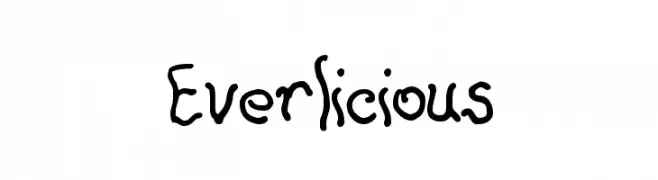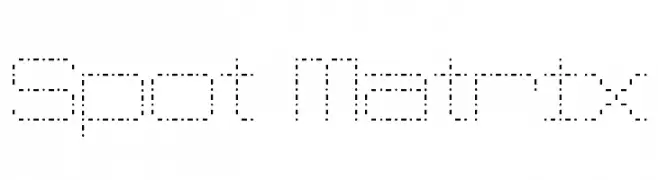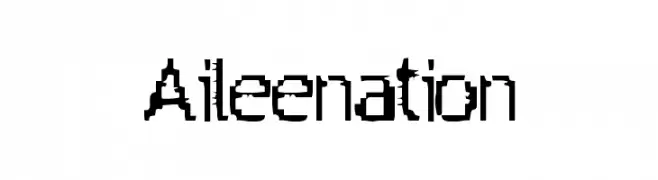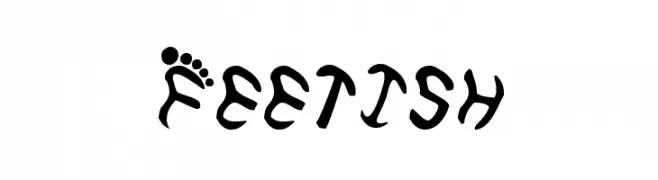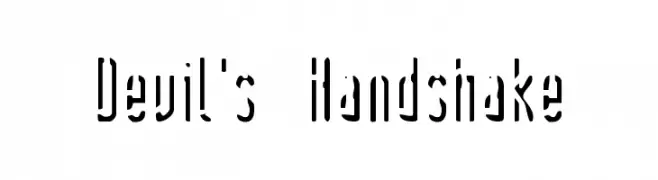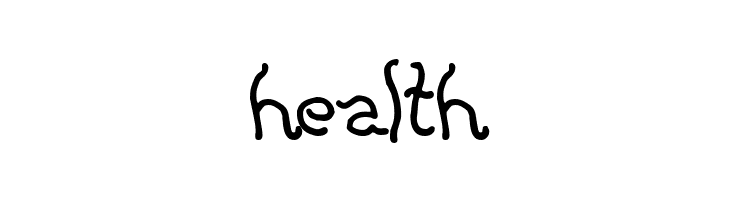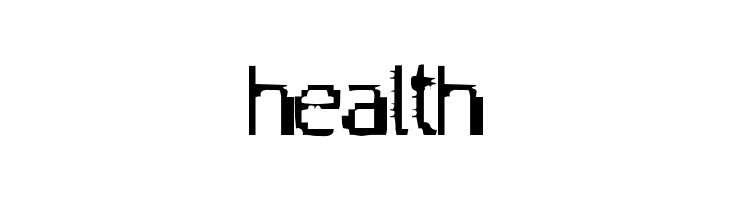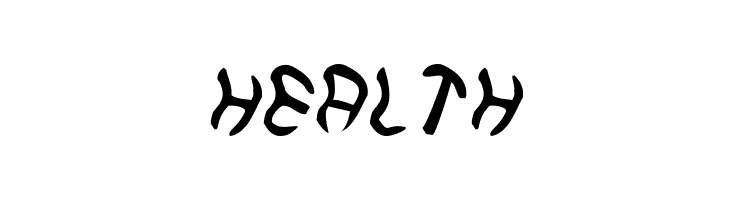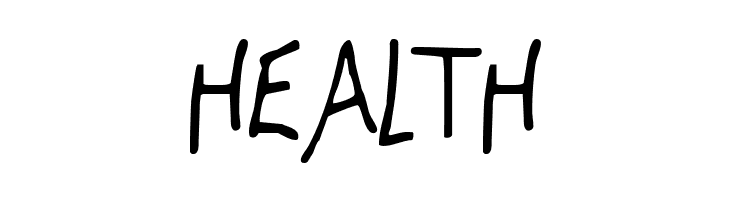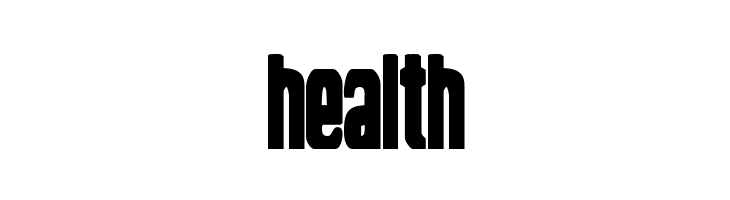
A playful, hand-drawn font with wavy lines and a whimsical style.
A bold, jagged font with a rebellious, distressed aesthetic.
A dot matrix style font with a retro digital display aesthetic.
A bold, distressed font with irregular edges and a hand-crafted appearance.
A playful, foot-themed font with bold, rounded characters and a whimsical style.
A playful, casual handwritten font with bold, irregular strokes.
A decorative font with a zigzag, stitched appearance.
A distressed, grunge-style font with a textured, weathered appearance.
A bold, tightly spaced font with thick, rounded strokes and a strong visual impact.
A bold, stencil-style font with sharp angles and an industrial feel.